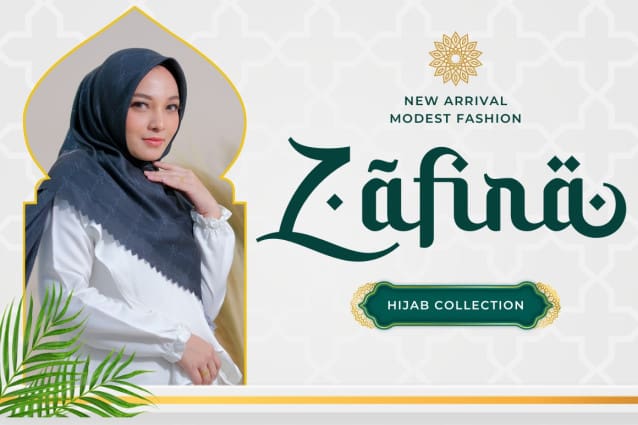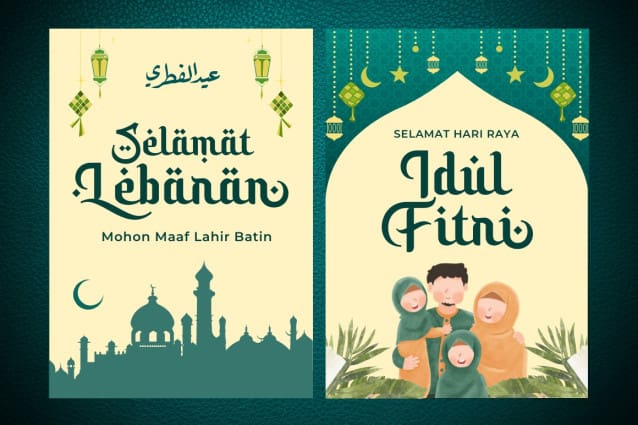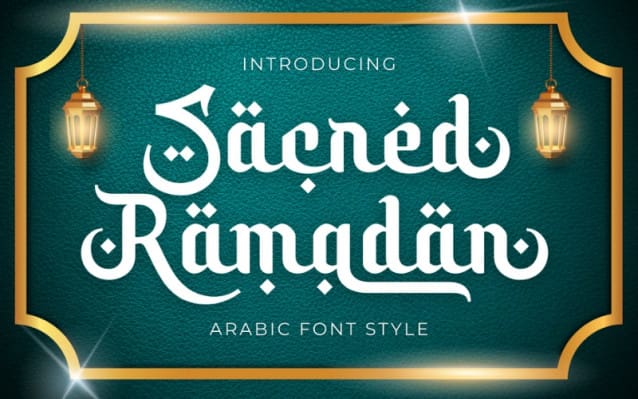
Sacred Ramadhan Font
Sacred Ramadhan Font, a bold Arabic script font designed to capture the essence of Ramadan. With its striking letterforms and intricate details, this font embodies the spirituality and significance of the holy month. Featuring alternate uppercase and lowercase characters, “Sacred Ramadhan” offers versatility and authenticity for your Ramadan-themed designs. Perfect for invitations, posters, or social media graphics, this font adds a touch of boldness and reverence to your projects, ensuring they shine with the spirit of Ramadan.